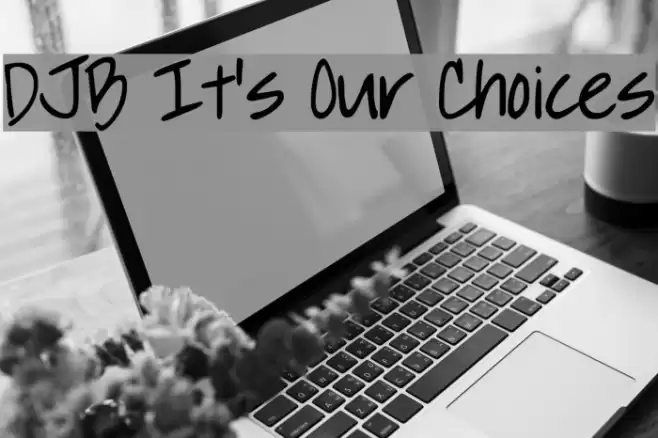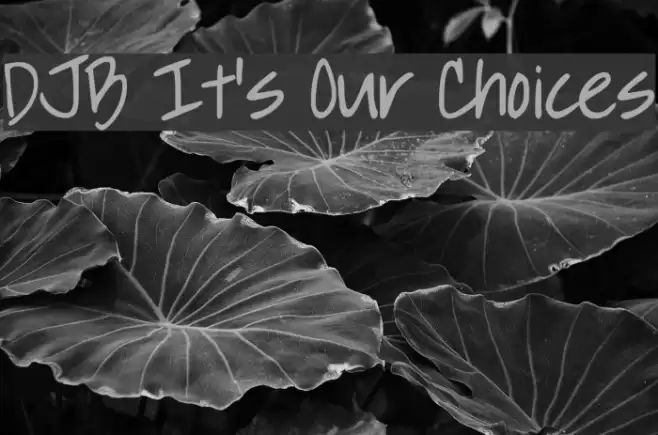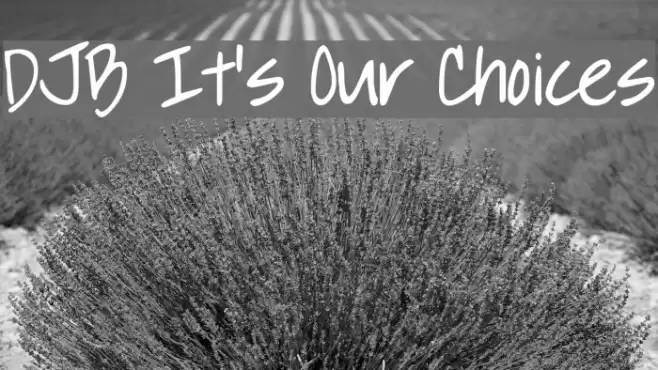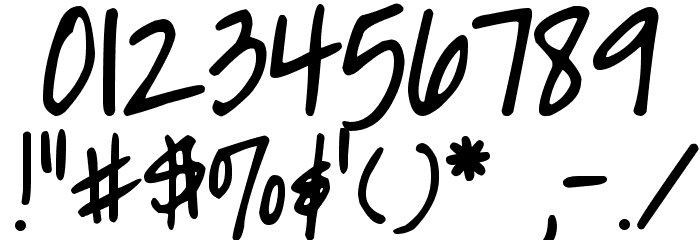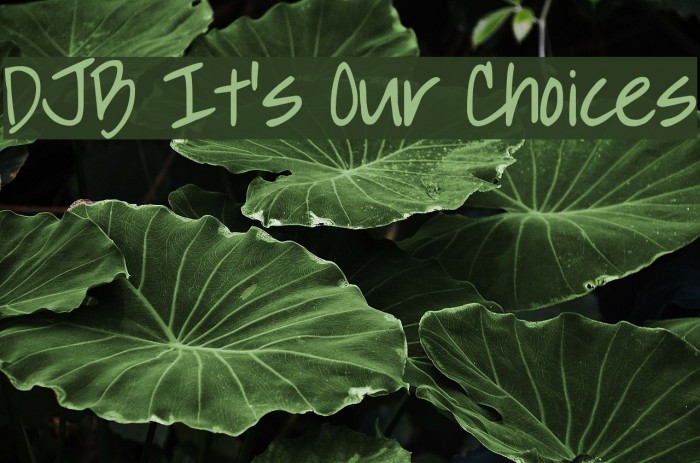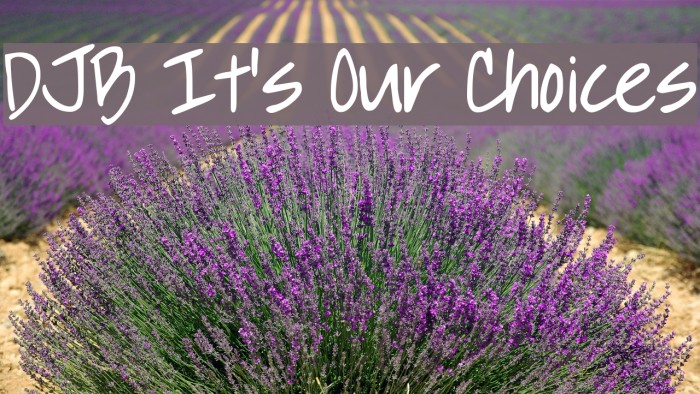
DJB It's Our Choices Font
DJB It's Our Choices Description
This font exhibits a playful and casual handwritten style, characterized by its loose and informal strokes. The letters are slightly slanted, giving a dynamic and energetic feel. The uppercase and lowercase letters maintain a consistent style, with rounded edges and a friendly appearance. The numerals and special characters follow the same casual aesthetic, making the font versatile for various informal applications. The overall look is approachable and lively, suitable for projects that require a personal touch.
A playful, casual handwritten font with a lively and informal style from Handwritten fonts.
- Proposed Projects: Ideal for greeting cards, children's books, personal blogs, and informal branding projects.
- Overall Style: Casual, Playful
- Use Case: Headlines, Informal text, Personal projects